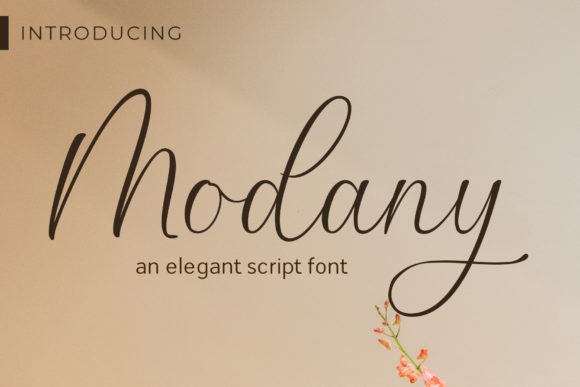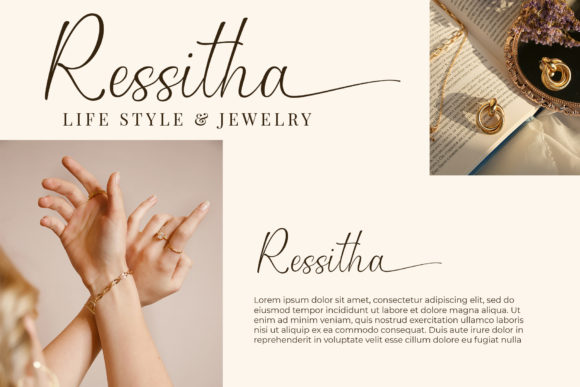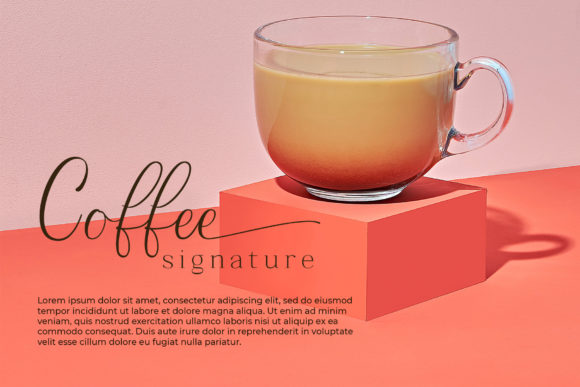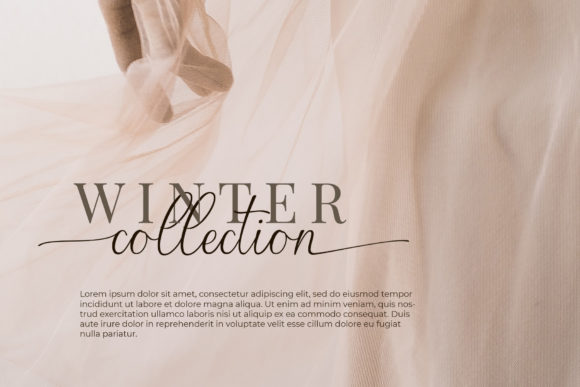
Modany Font: Elegant Cursive Script for Wedding & Logo Design
About the Modany Font
Welcome to the world of Modany Font, a typeface that will inspire your next great project. Modany is a sweet and cursive handwritten font. This gentle font will look gorgeous on a variety of design ideas. It will add a joyful and romantic touch to each of your projects! This font is PUA encoded which means you can access all of the amazing glyphs and ligatures with ease!
Modany’s delicate nature makes it ideal for projects requiring a touch of elegance and romanticism, such as wedding invitations, greeting cards, or feminine branding. It excels in short text applications like headlines, logos, and short quotes where its cursive charm shines. However, its low x-height and connected strokes make it unsuitable for body text or lengthy paragraphs, resulting in poor readability.
Pairing Modany with a clean sans-serif like Lato or Open Sans provides a strong contrast, balancing its whimsical script with modern clarity. For a more traditional feel, consider pairing it with a serif like Playfair Display, which complements its elegant curves. Avoid pairing it with other highly decorative scripts, as this could lead to visual clutter.
Modany’s overall personality is best described as romantic and playful, conveying a sense of gentle warmth and sophistication. Its soft curves and flowing forms create a feeling of approachability, making it perfect for brands associated with femininity, luxury, or handcrafted goods.